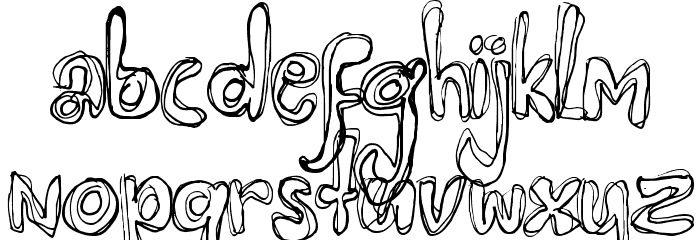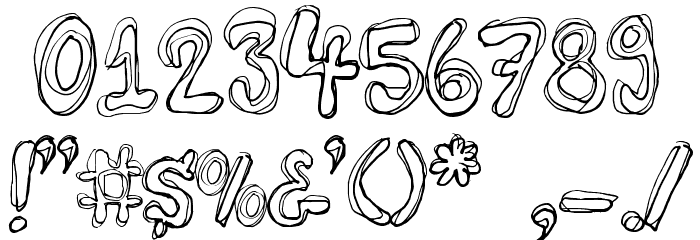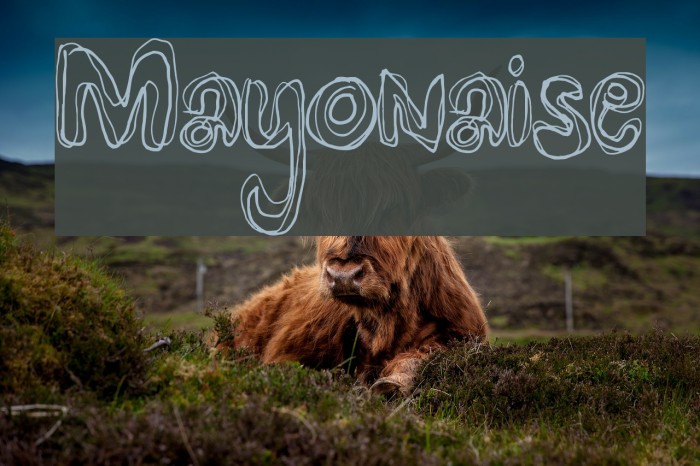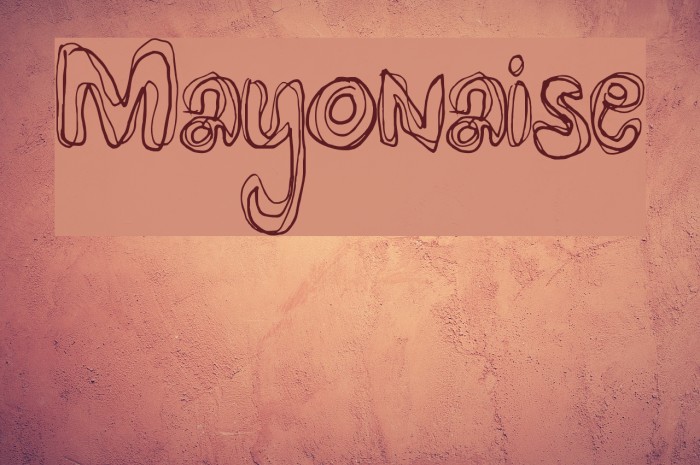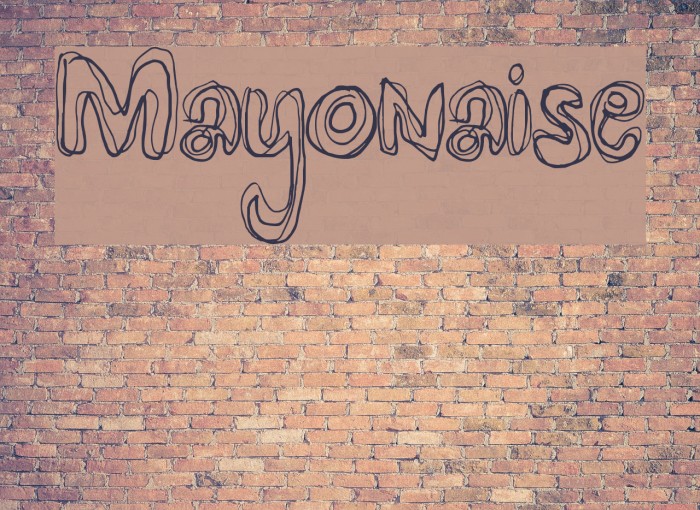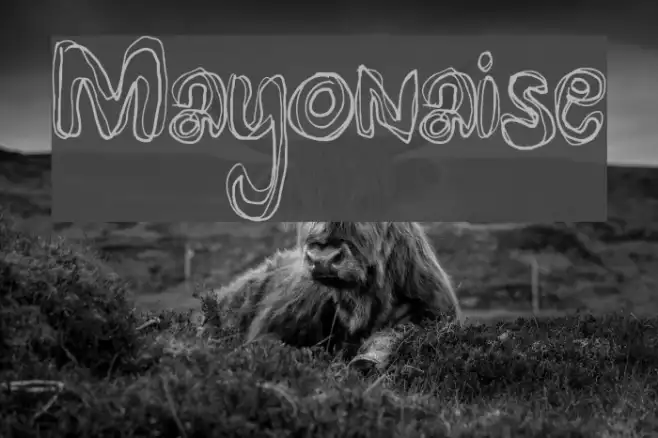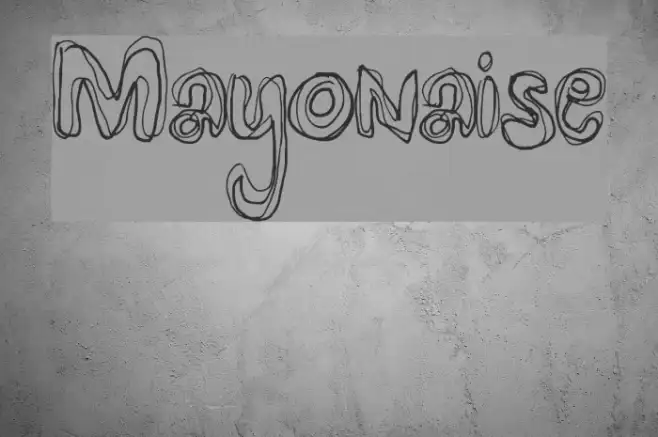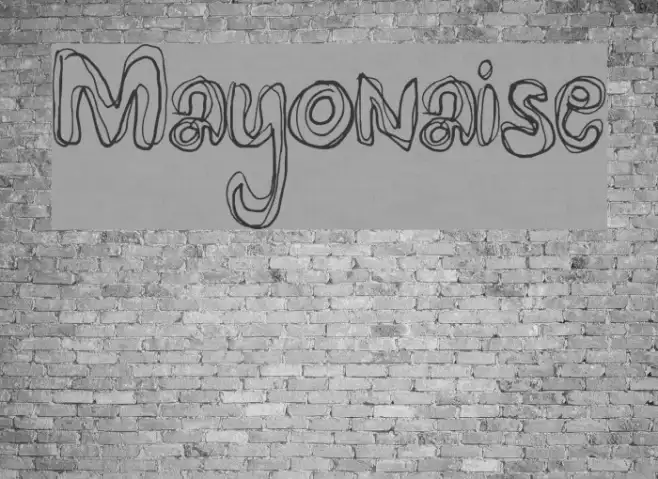
Mayonaise Font
This font features a playful and artistic design with a hand-drawn appearance. Each character is outlined with a double line, creating a sense of depth and movement. The letters are slightly irregular, adding to the whimsical and informal style. The font includes both uppercase and lowercase letters, numbers, and a variety of special characters. Its unique style makes it stand out, perfect for creative projects that require a touch of personality and flair.
A playful, hand-drawn font with double-line outlines and whimsical style.
- Proposed Projects: Ideal for children's book covers, playful branding, artistic posters, and creative invitations.
- Overall Style: Whimsical, Artistic